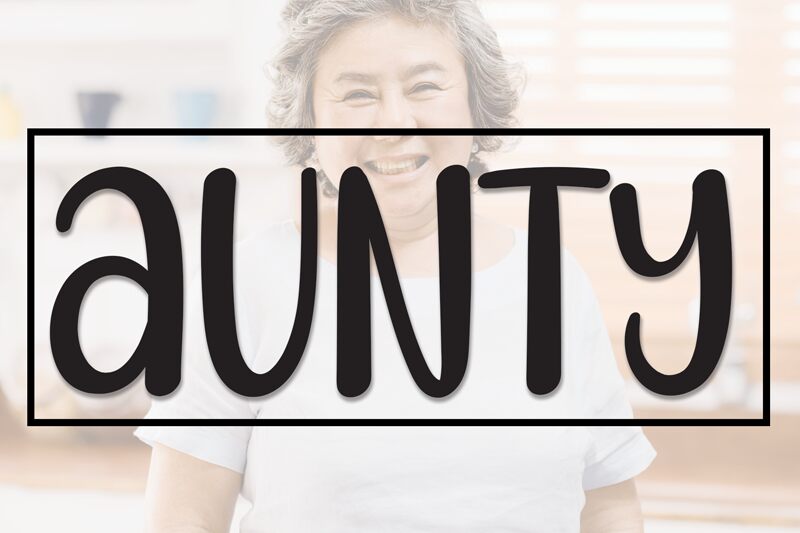
Aunty
Aunty font is a cheerful free handwritten font from Andi Moz that carries a friendly impression. This approachable typeface is clean with each letter readable which qualifies it for both fun and serious project use. The retro-inspired design brings in past vibes, but its modern shape makes the font useful in today’s creative fields.